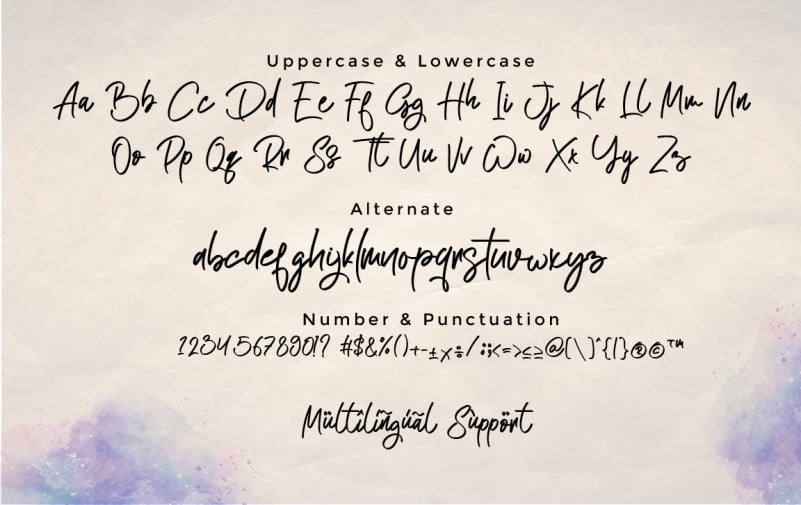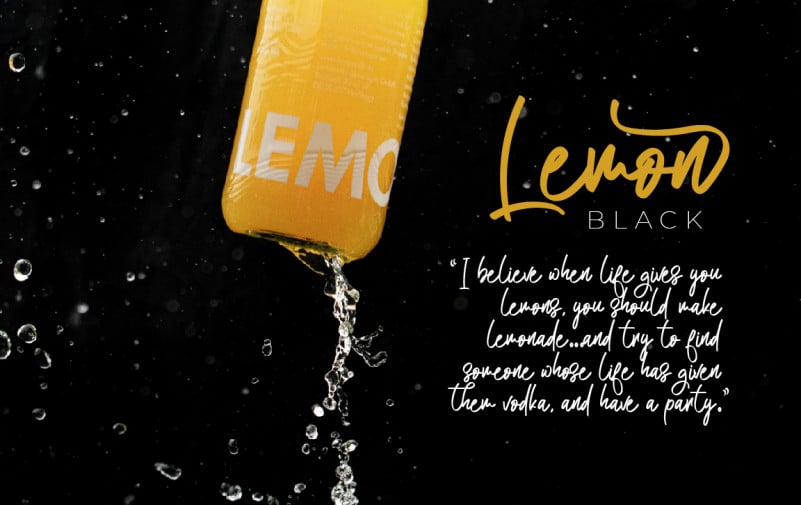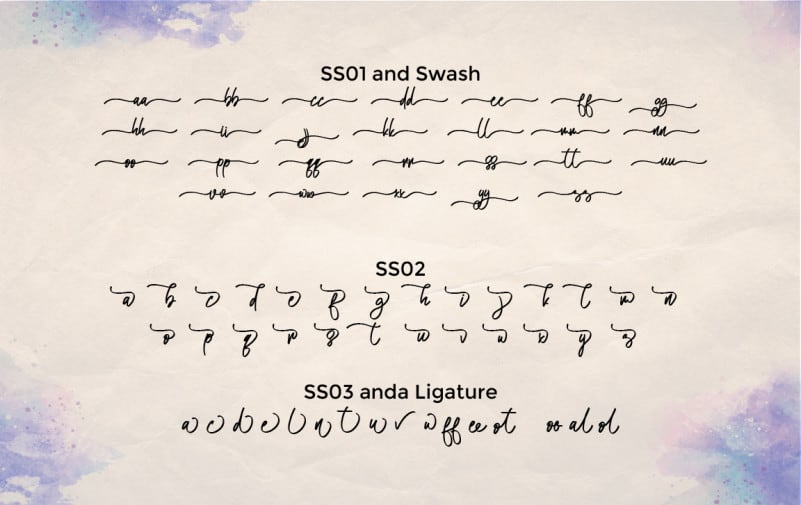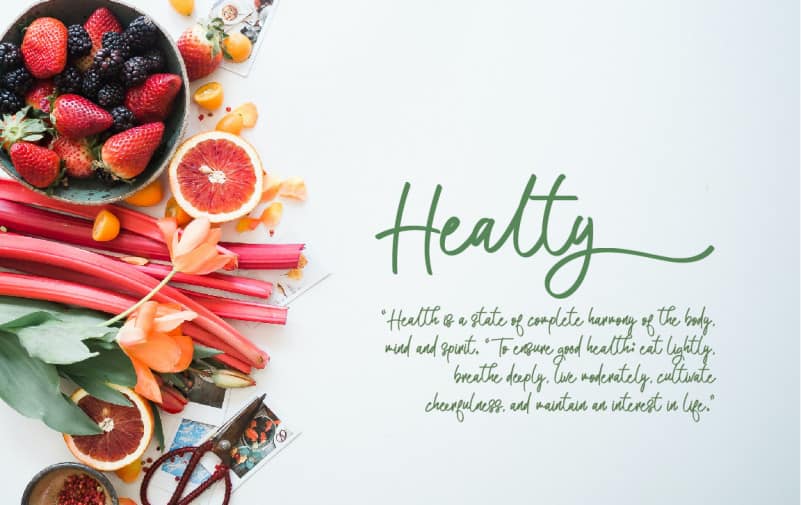
Atakana Script Font is a New Handwriting Font script that make with love. This font is suitable for any branding of your design needs, wedding invitation, romantic project, studio brand, logo, invitations, social media posts, clothing, invitation, poster, cafe/resto sign and others.